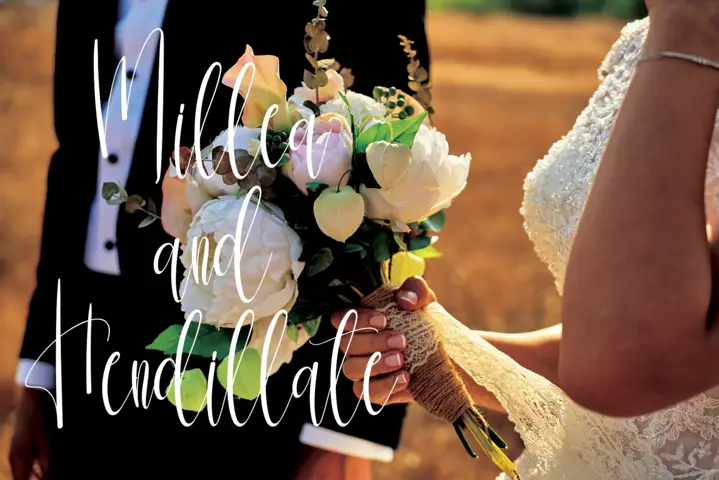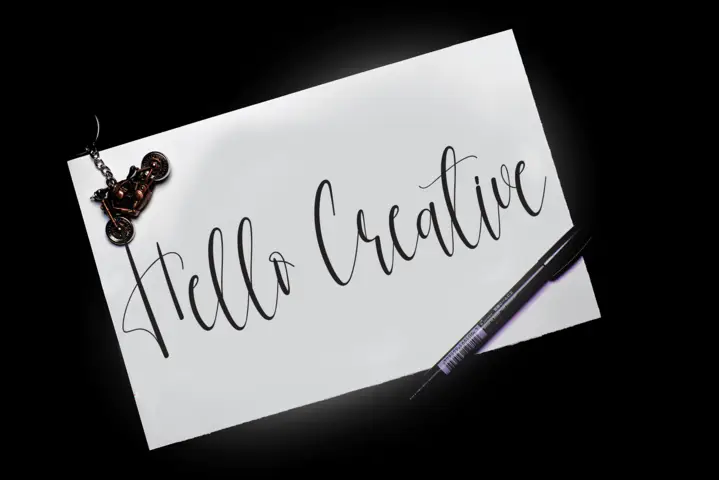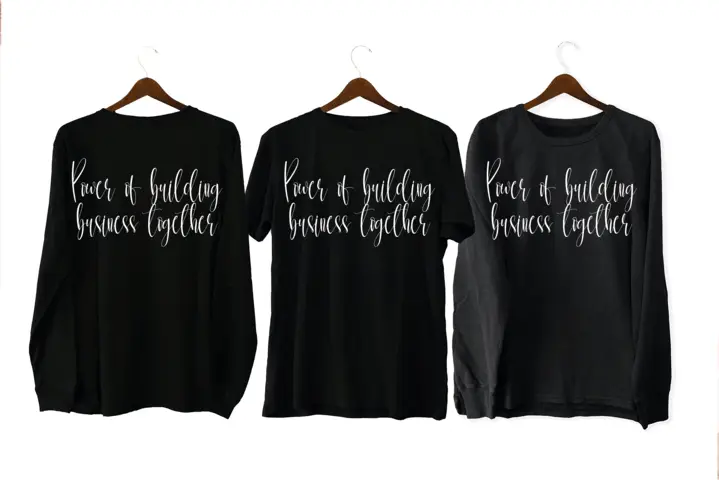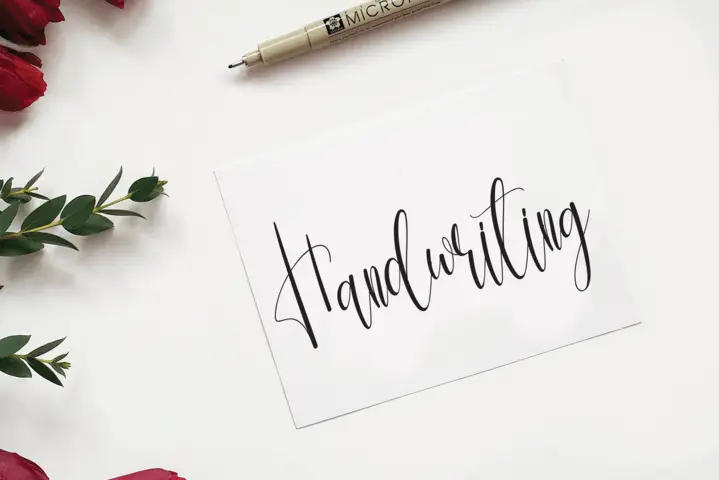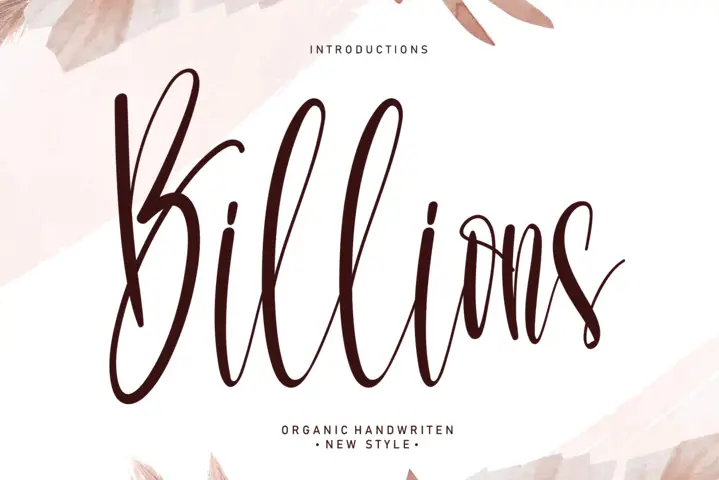
Billions Script Font
Introducing the Billions Script Font, a beautifully crafted typeface that brings elegance and style to your design projects. This font features a flowing script style, perfect for adding a personal touch to your branding, logos, and invitations.
• Stylish script design
• Easy to read, even at smaller sizes
• Ideal for branding and logo design
• Great for wedding invitations and greeting cards
• Use in web design to create a unique look